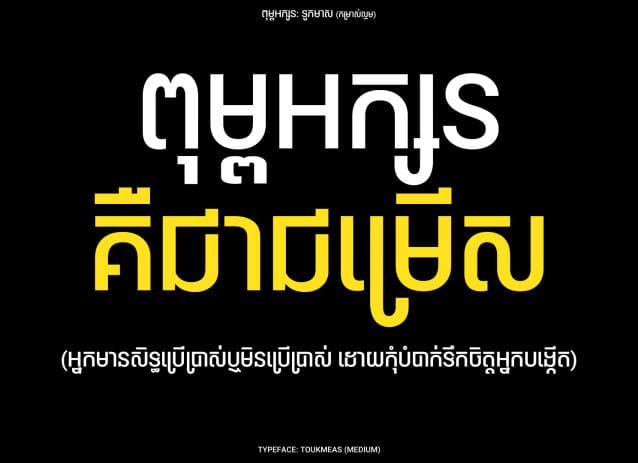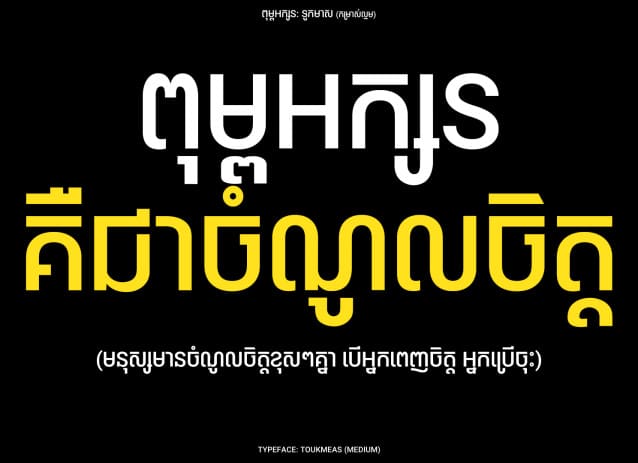
Toukmeas Medium Font, Perfectly fit for branding, logo, wedding things, greeting cards, fashion, lookbook, marketing promotion, anytime you want to look fancy elegant but still casual.
Toukmeas Medium Font
| Classification: | Display Fonts, Sans Serif Fonts, Various Fonts |